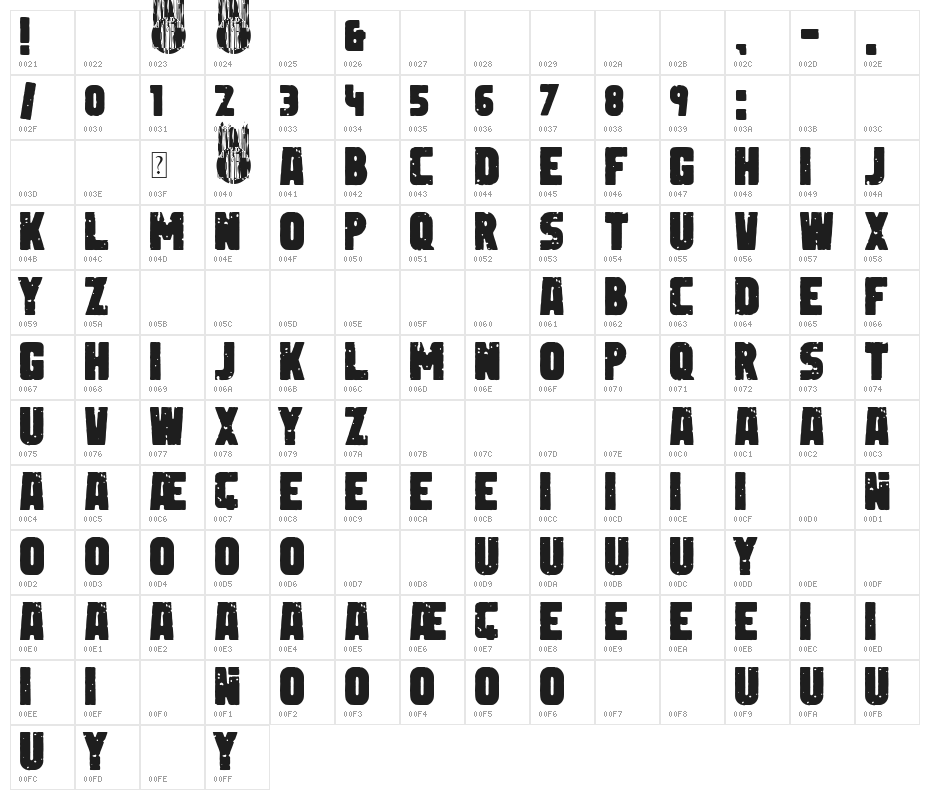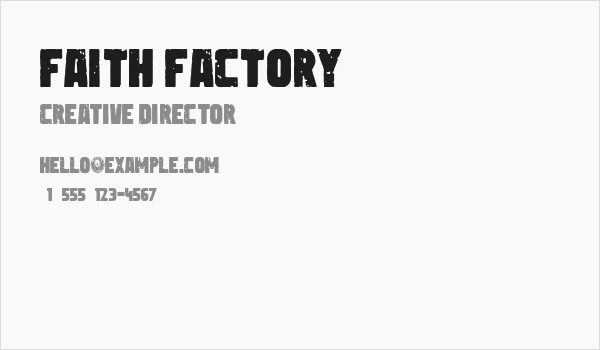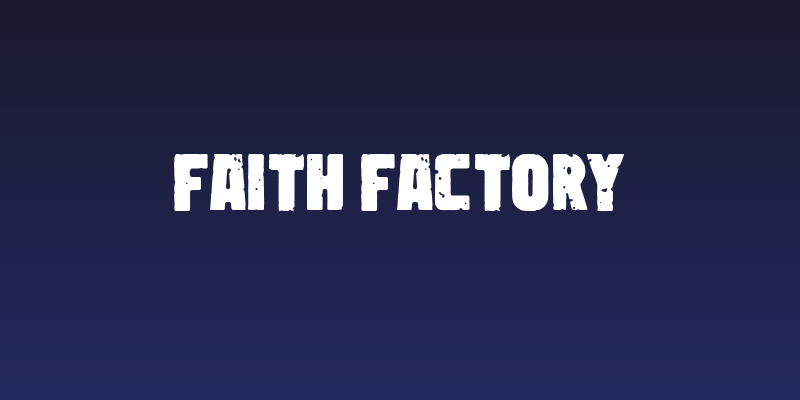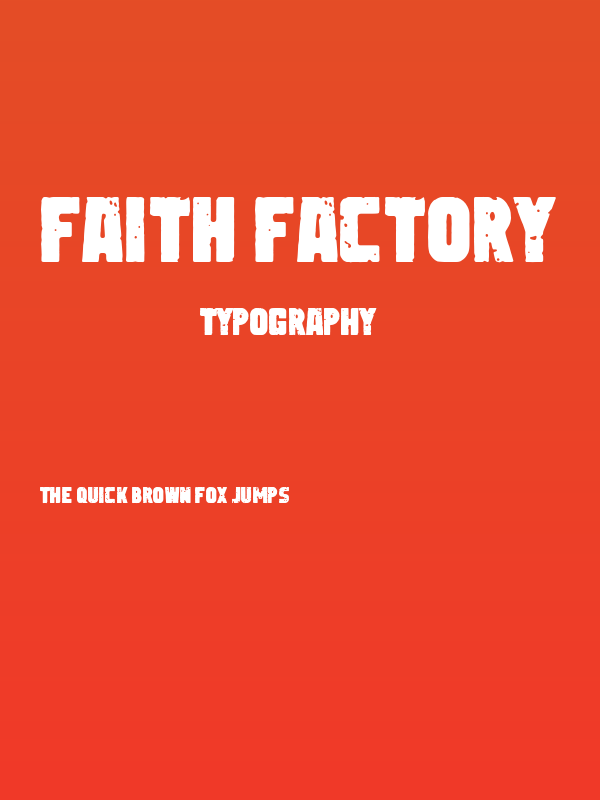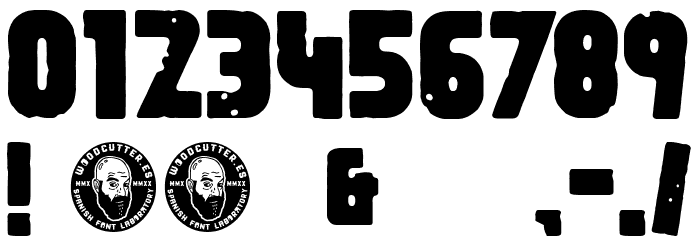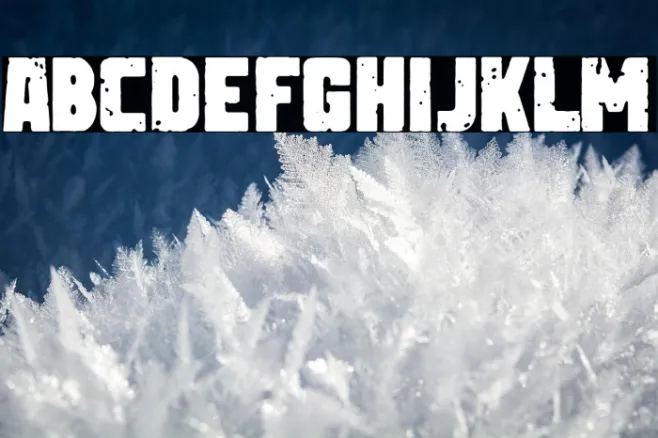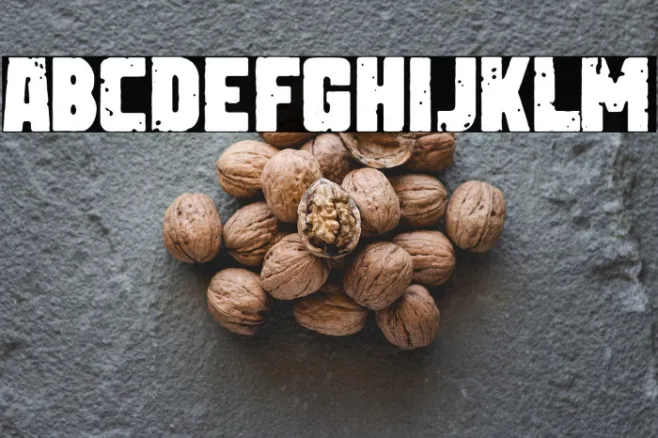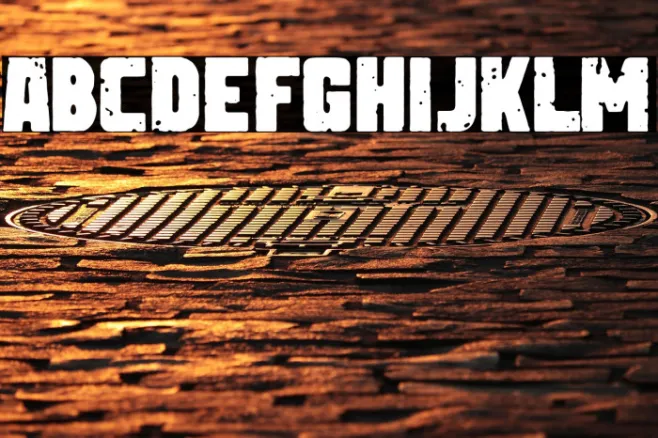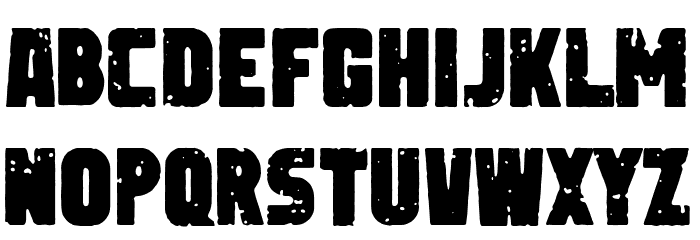
Faith Factory Font
Faith Factory Description
This font features a bold, distressed style with a rugged, industrial feel. The characters are blocky and substantial, with a weathered texture that gives them a vintage, worn appearance. The uppercase and lowercase letters maintain a consistent weight, providing a strong visual impact. The numerals and special characters follow the same design, ensuring uniformity across all glyphs. This font's distinctive look is ideal for projects that require a bold statement, such as posters, logos, or branding materials that aim to convey strength and durability.
| Proposed Projects | Ideal for posters, logos, branding materials, and any project needing a strong, vintage aesthetic. |